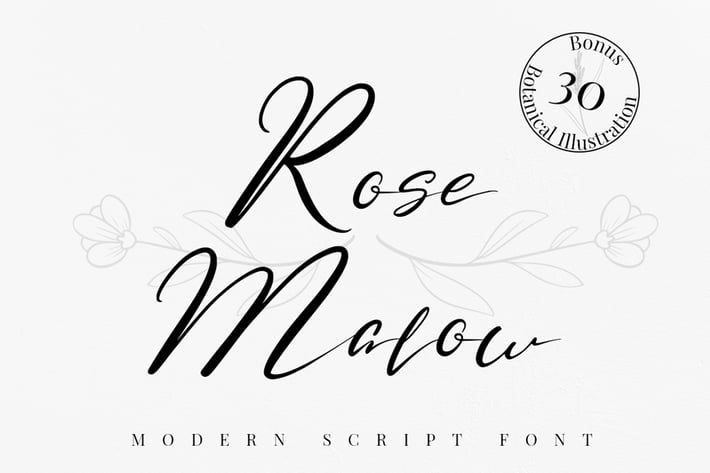
Rose Malow - Modern Script Font
Introducing Rose Malow is Modern Script Font,
Rose Malow is a lovely font, this font is perfect for branding, logo, invitation, stationery, wedding designs, social media post, handwritten quotes, product packaging, merchandise,
blog design,Book/Cover Title and more.
Rose Malow come with bonus 30 botanical illustration.
More than 50 ligatures